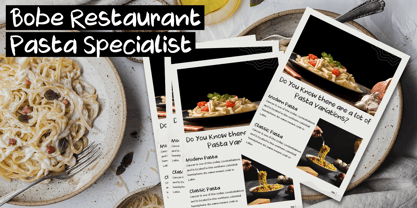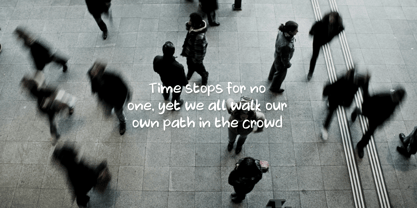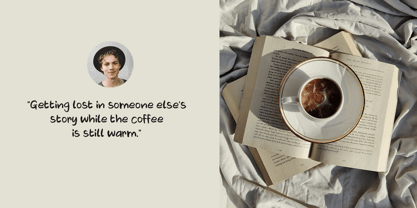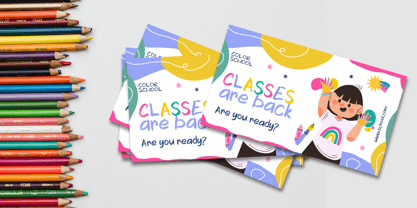
The Scrumble Handwritten
von Struggle Studio
Die Schriftfamilie The Scrumble Handwritten wurde von Andri Kurniawan entworfen und von Struggle Studio veröffentlicht. The Scrumble Handwritten enthält 1 Stile. Mehr über diese Familie
The Scrumble – A Playful & Authentic Hand-Lettered Font Inject a dose of personality into your designs with The Scrumble. This hand-lettered font is designed to capture the raw, charming imperfection of natural handwriting. With its bold strokes and friendly curves, it strikes the perfect balance between casual creativity and modern aesthetics. Stop being "perfect" and start being "real." Whether you’re designing a quirky poster, a heartfelt greeting card, or a trendy brand identity, The Scrumble adds that authentic, handmade signature that makes your work stand out.
Designer: Andri Kurniawan
Foundry: Struggle Studio